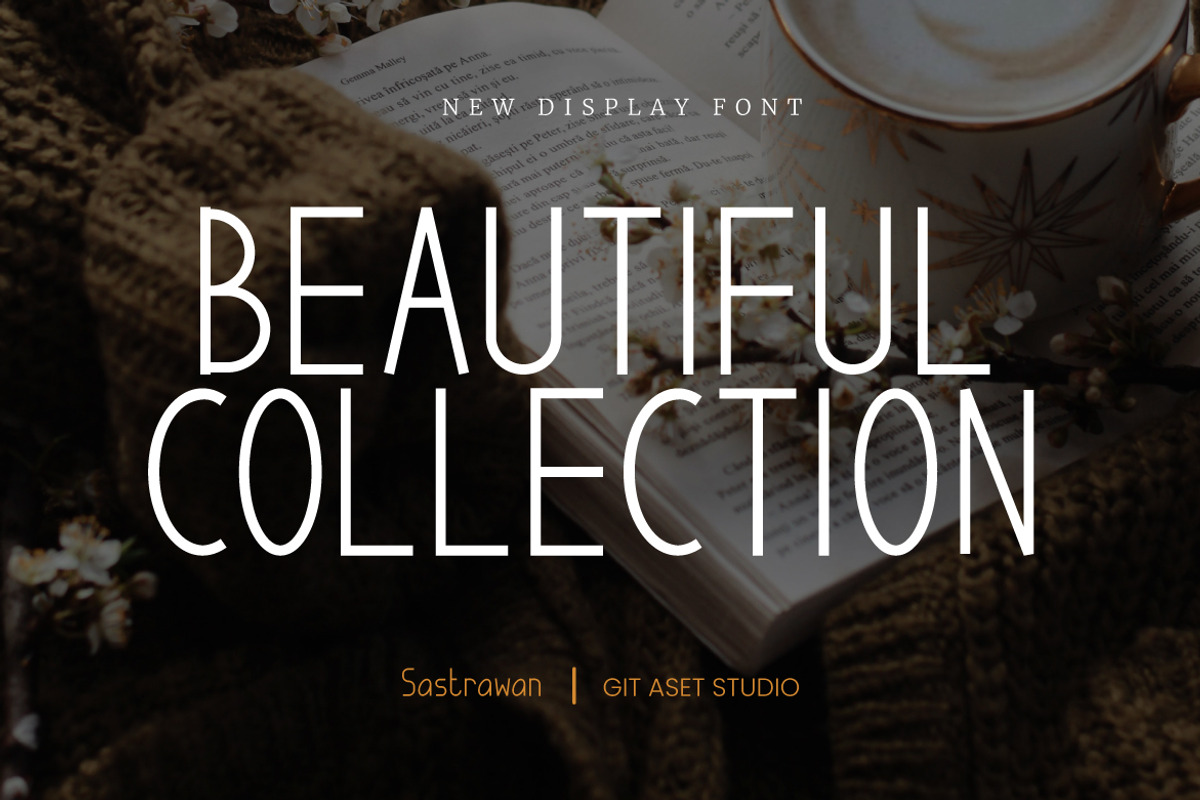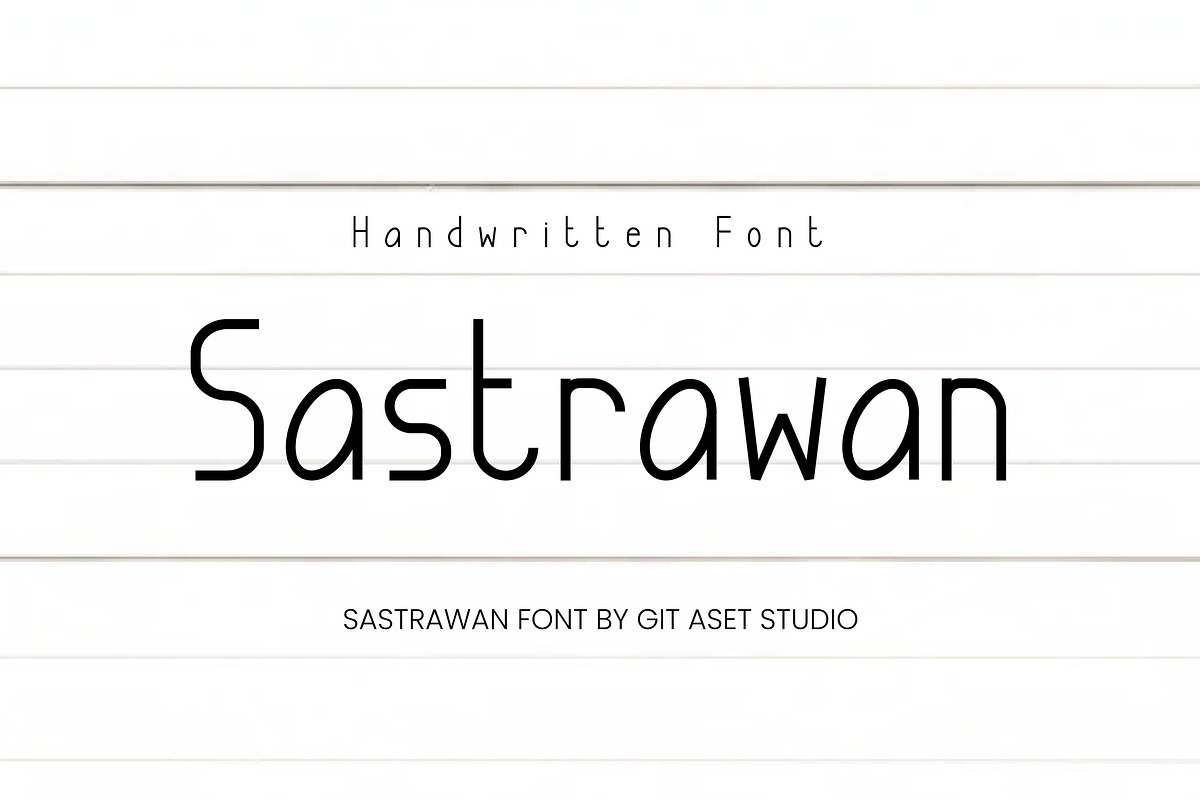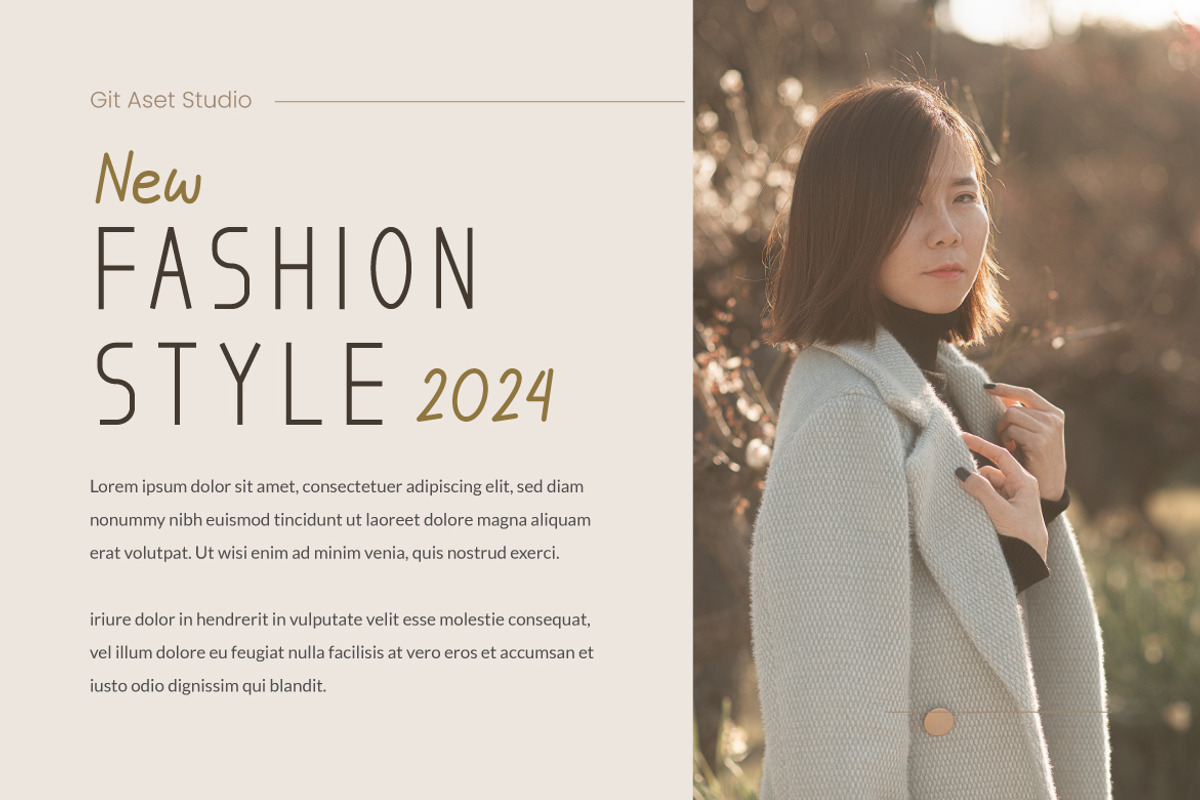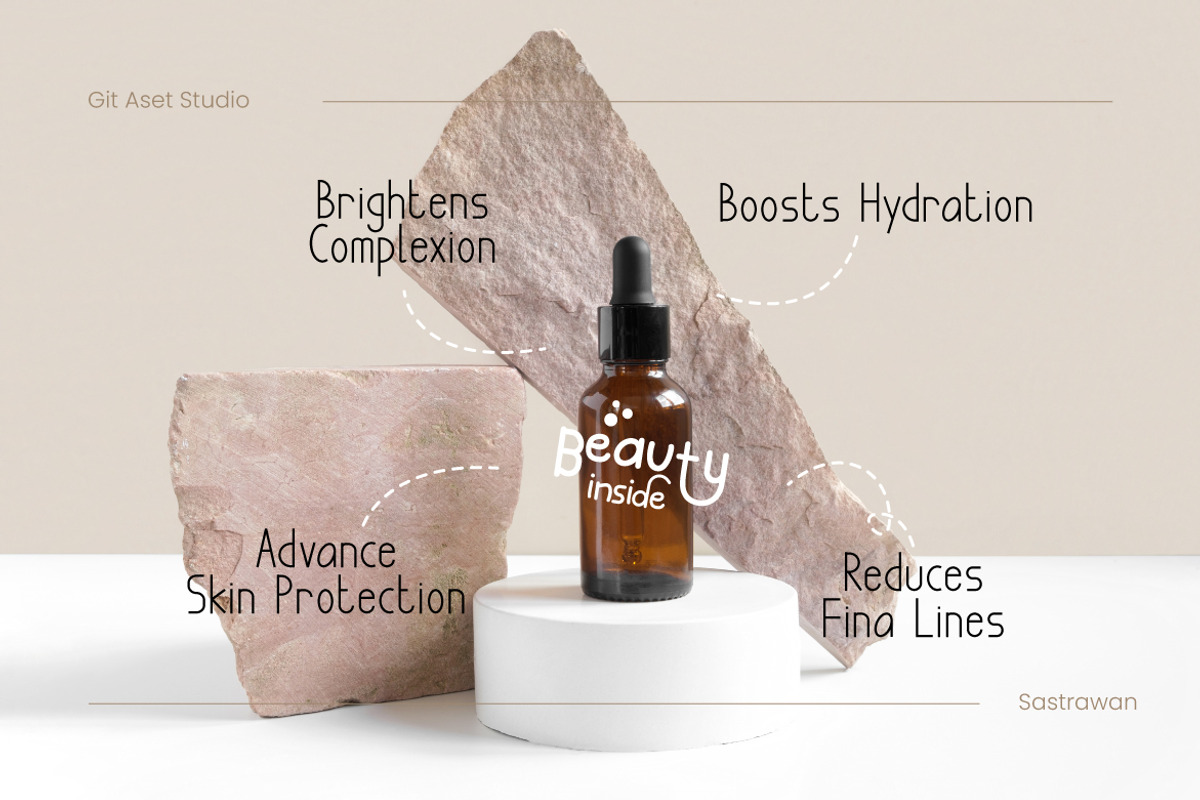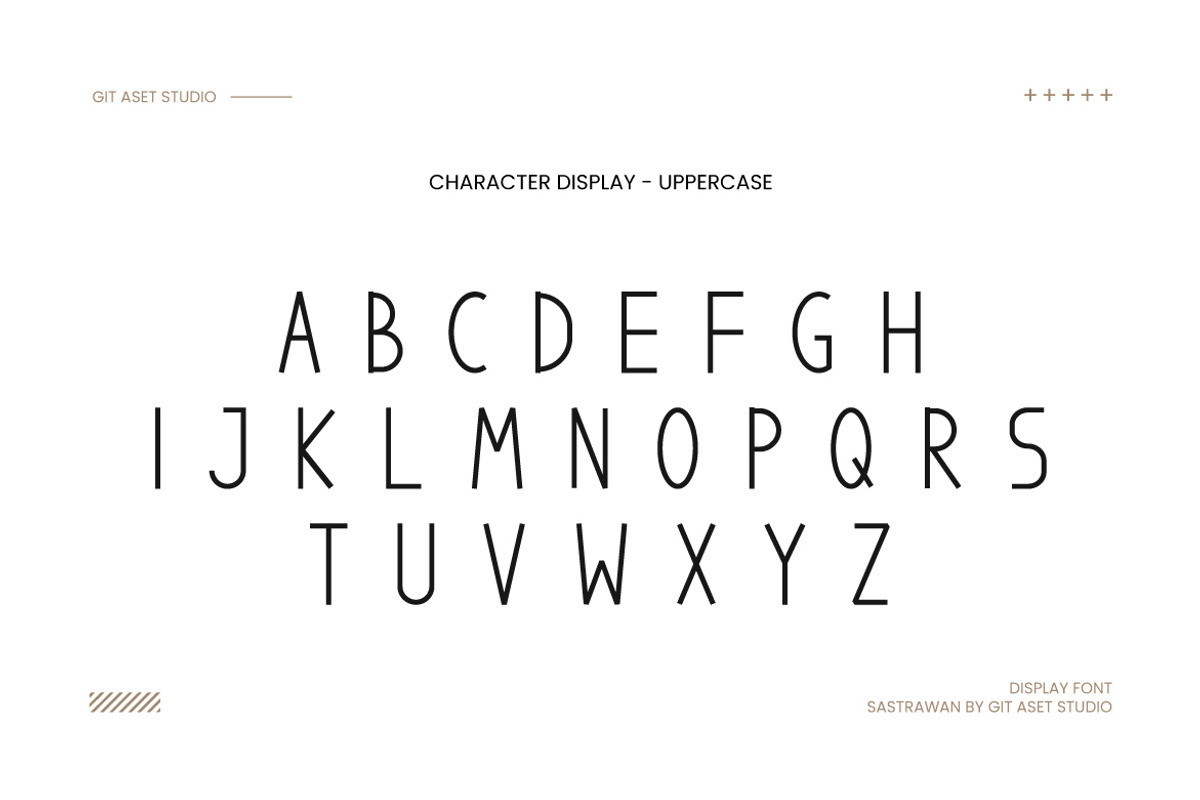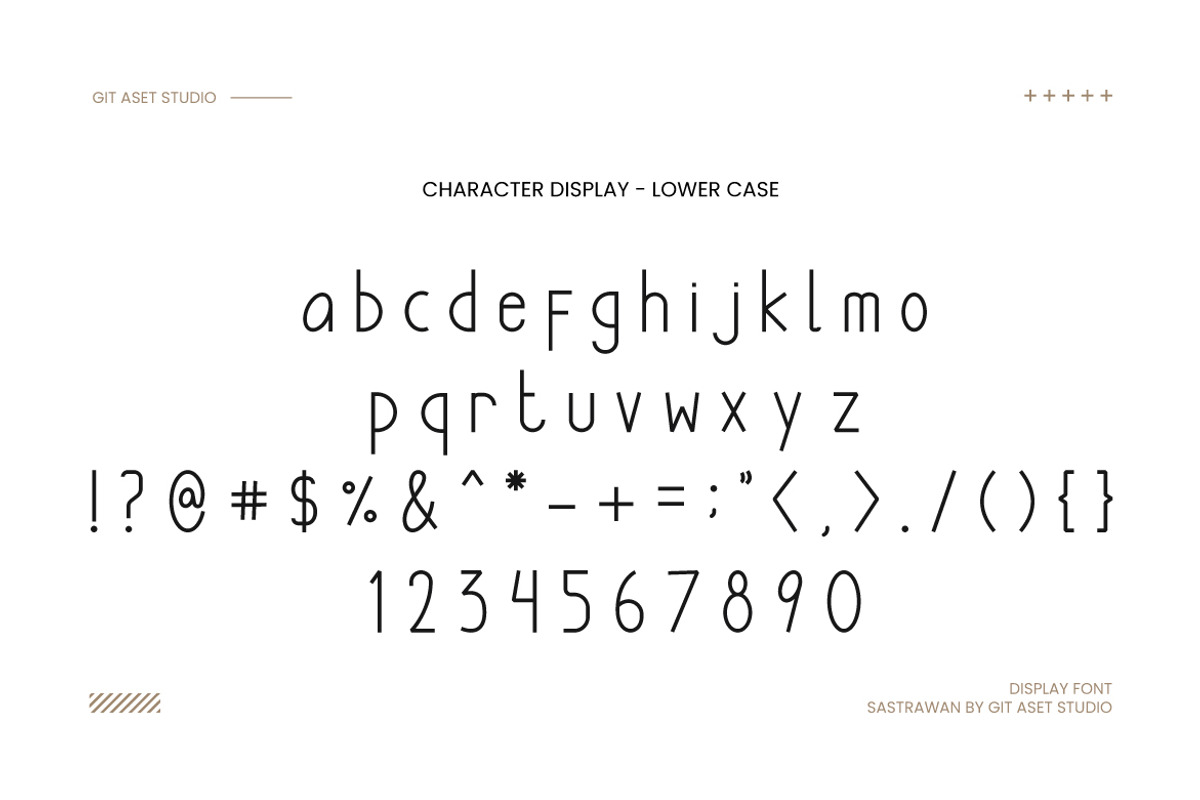
Sastrawan Handwritten Font
Sastrawan Handwritten Font is a unique asset that adds a touch of authenticity and personalization to any design project. With its charming imperfections and hand-drawn feel, it brings a sense of warmth and character that is hard to replicate with other fonts.
Whether you are working on branding materials, invitations, greeting cards, posters, or social media graphics, this handwritten font will bring a personal and creative touch to your design projects. Its versatility allows it to be used for both formal and informal designs, giving you the freedom to experiment and explore various styles.